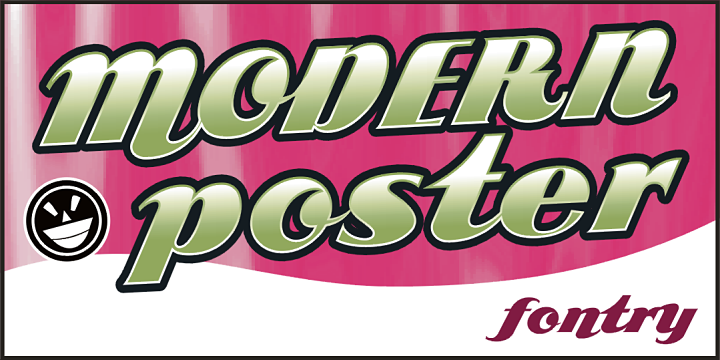
ARB 85 Modern Poster JAN-39 by Michael G Adkins Beginning in January, 1932, Becker, at the request of then-editor E. Thomas Kelly, supplied SIGNS of the Times magazine's new Art and Design section with an alphabet a month, a project predicted to last only two years. Misjuding the popularity of the "series," it instead ran for 27 years, ending finally two months before Becker's death in 1959, for a grand total of 320 alphabets, a nearly perfect, uninterrupted run. In late 1941, almost ten years after the first alphabet was published, 100 of those alphabets were compiled and published in bookform under the title, "100 Alphabets," by Alf R. Becker. As published in January, 1939, this is the description that accompanied Becker's 85th alphabet, Modern Poster Script: This is MODERN POSTER SCRIPT--Alphabet No. 85, an attractive style with swing and highly suitable for modern poster and card work. It is heavy and bold, yet graceful, and it can be made with good speed. For commercial use please feel free to contact us for price, links and details at: the_fontry@yahoo.com or visit the Fontry website http://www.thefontry.com/ |